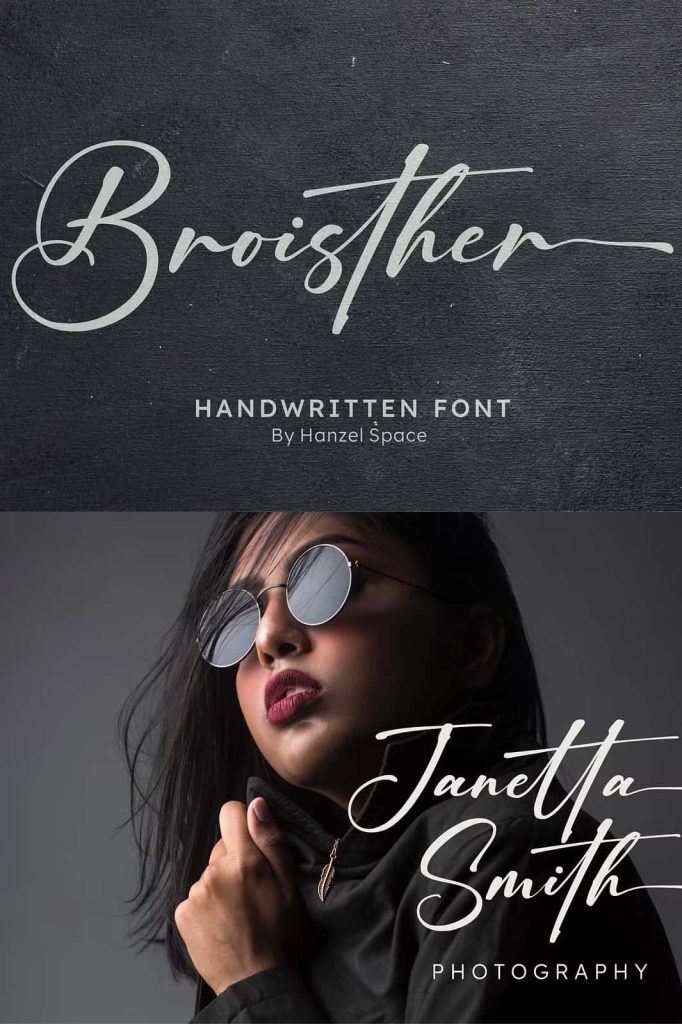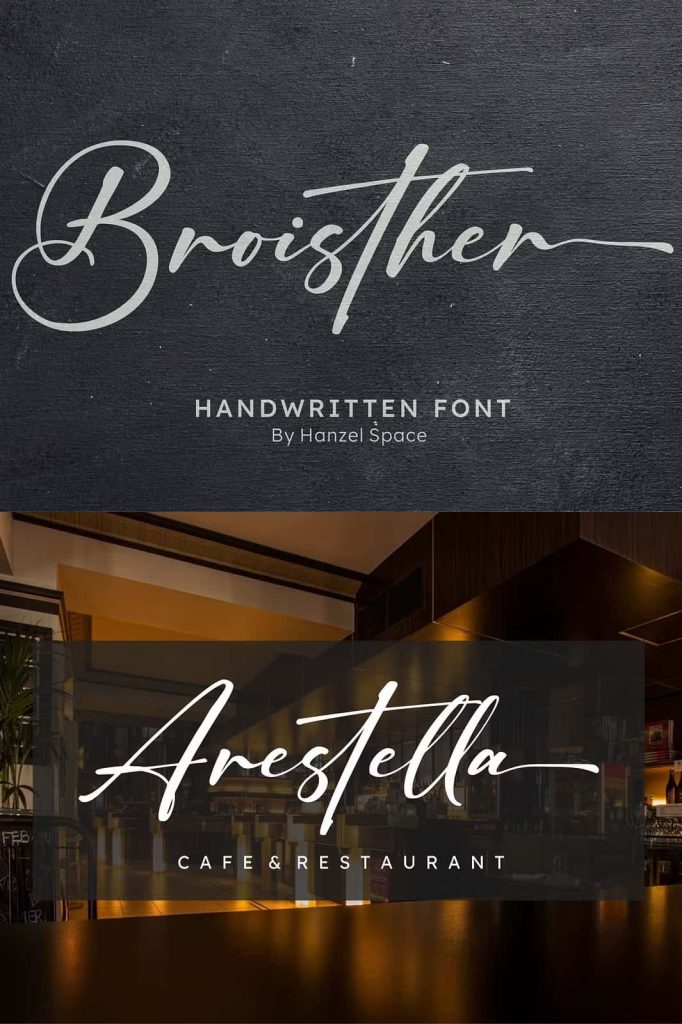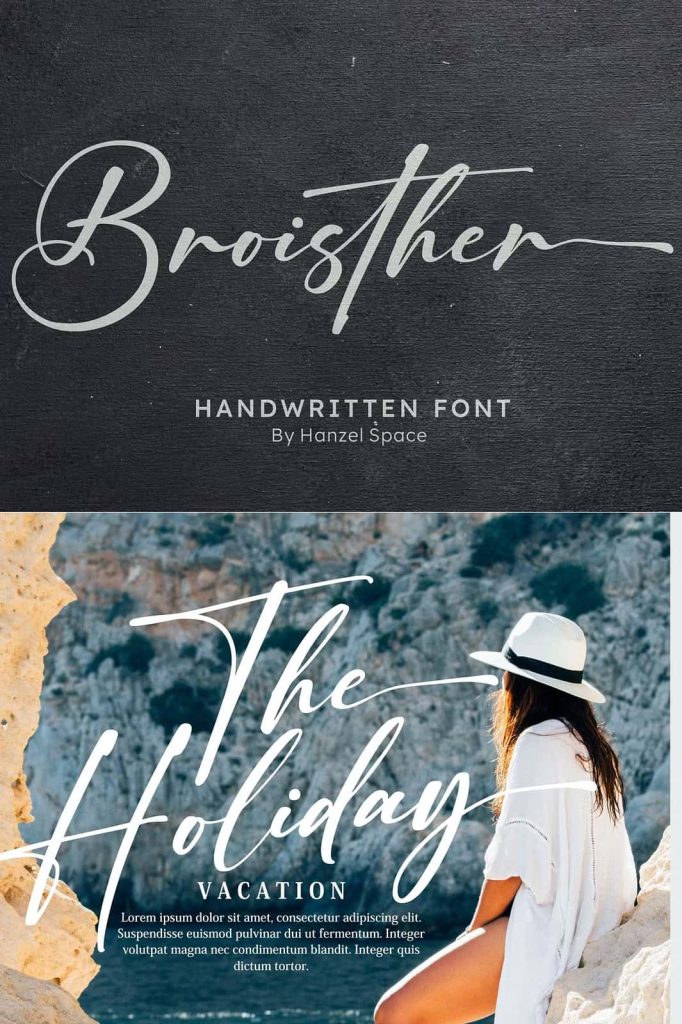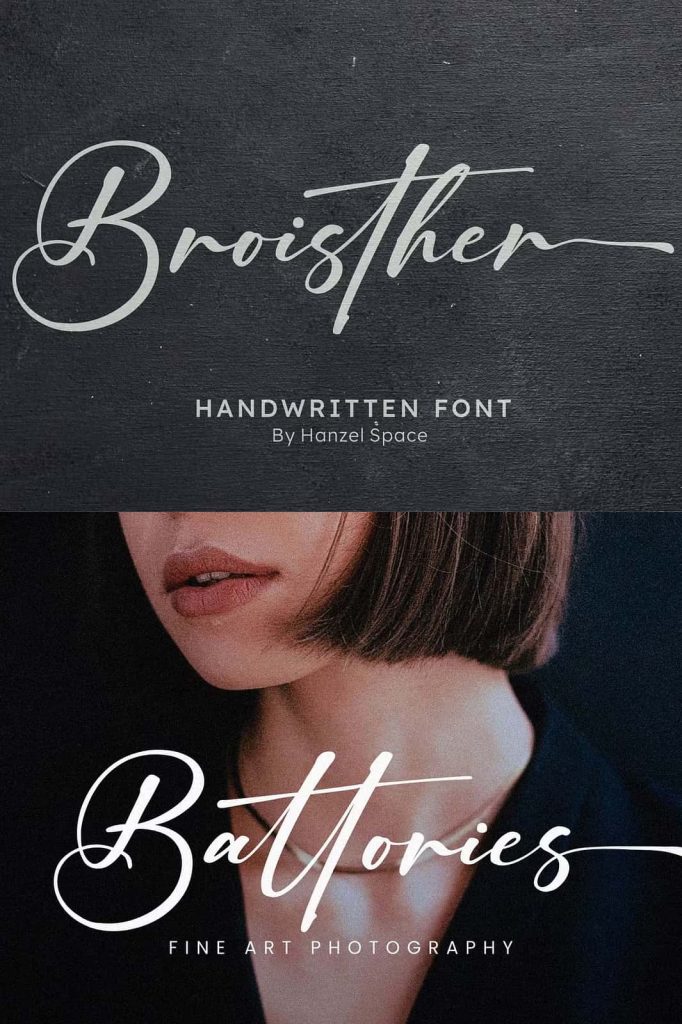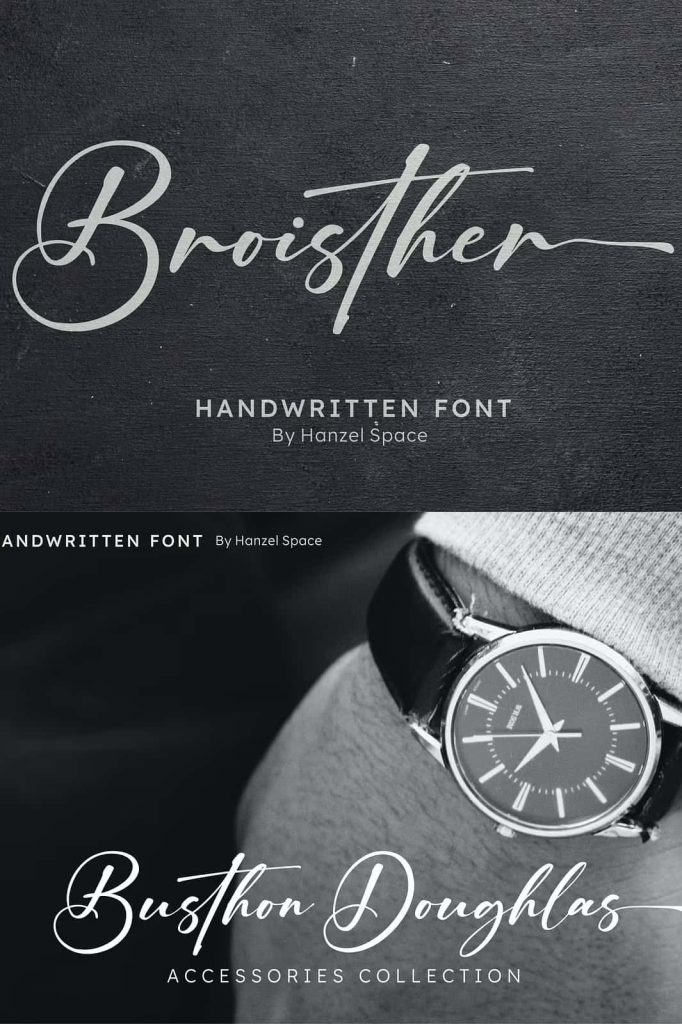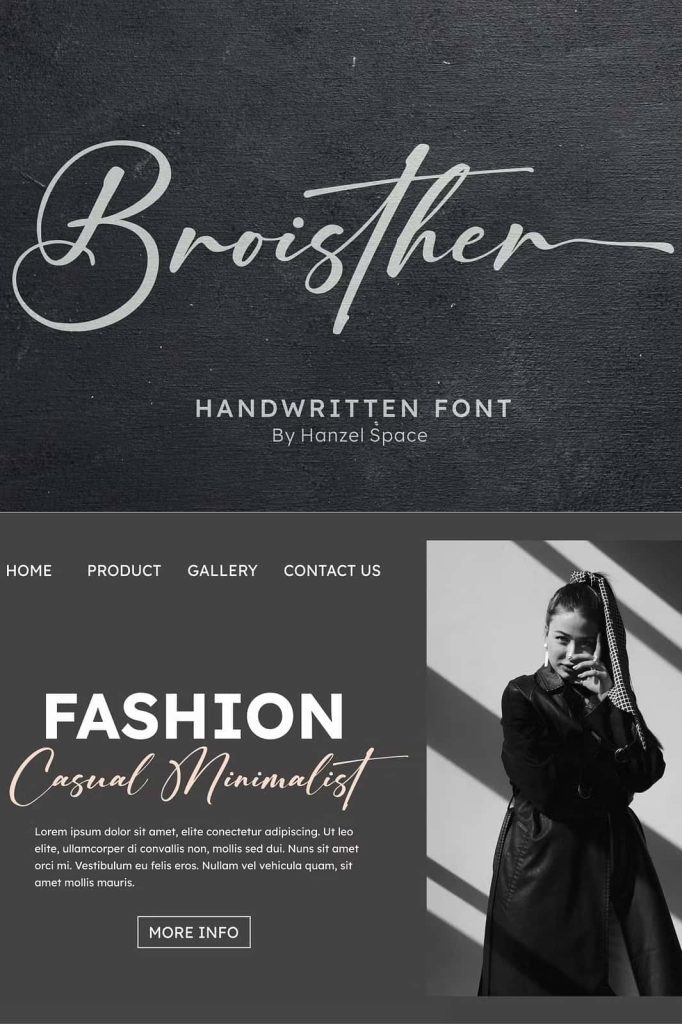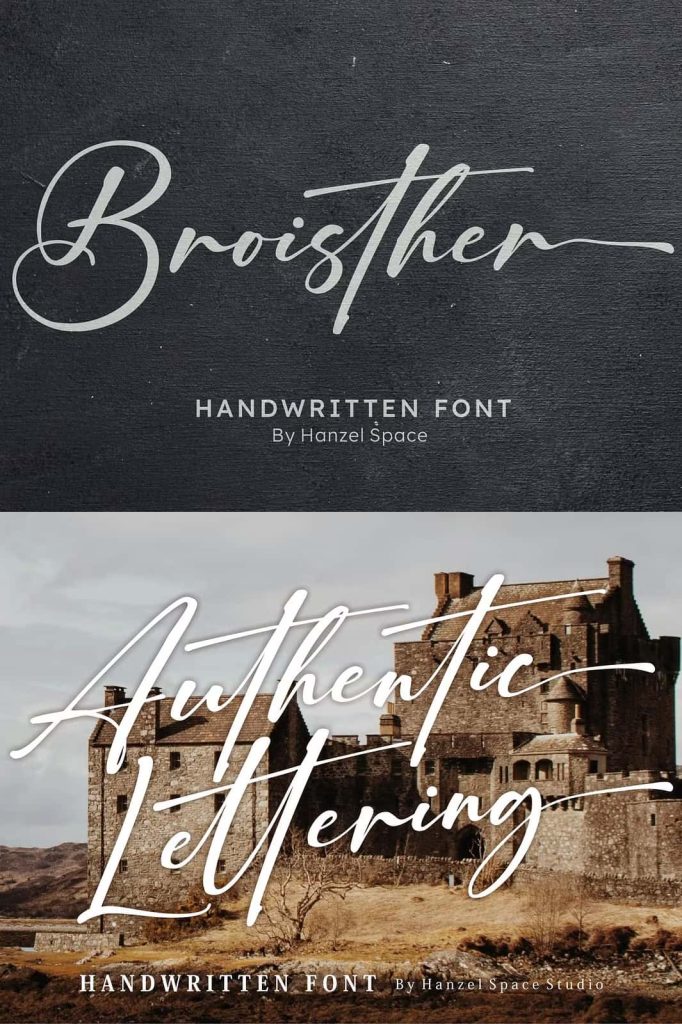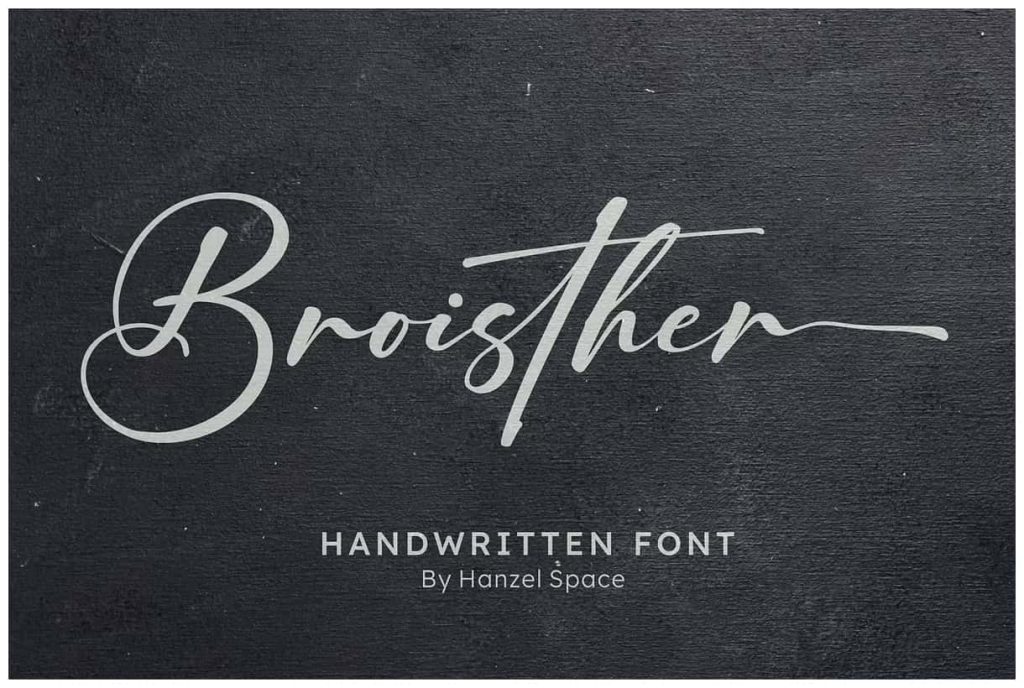
Broisther Handwritten FontleastedApril 2, 2025Fonts Say hello Broisther, a handwritten script font inspired by handwriting with an aesthetic touch. Download